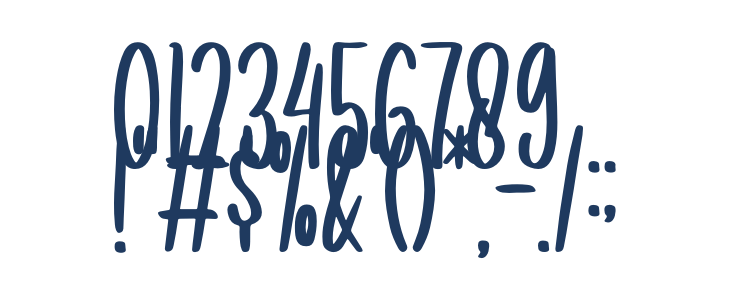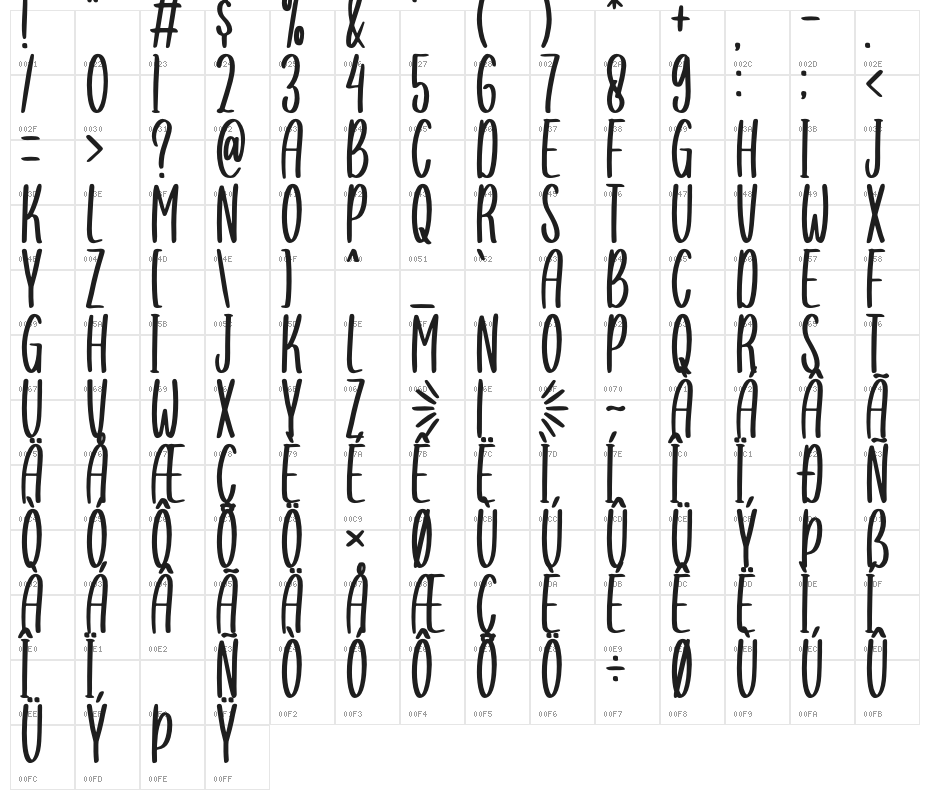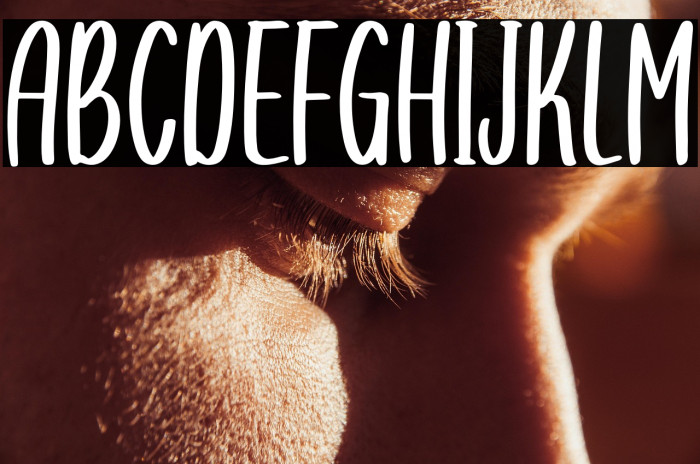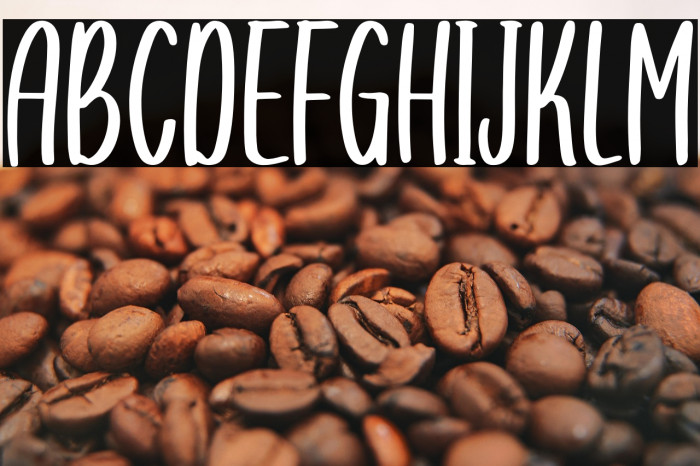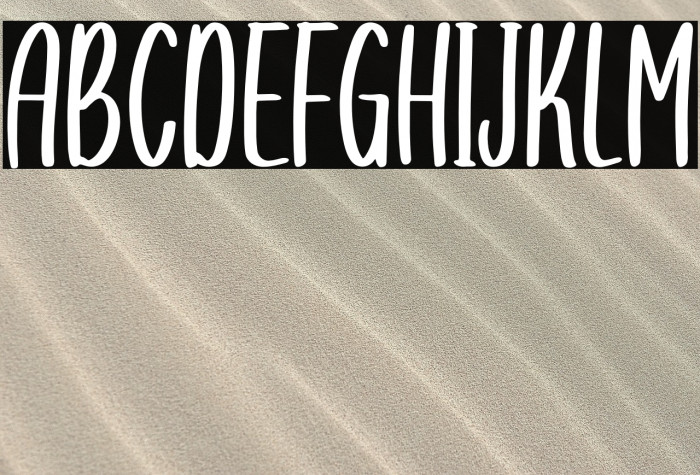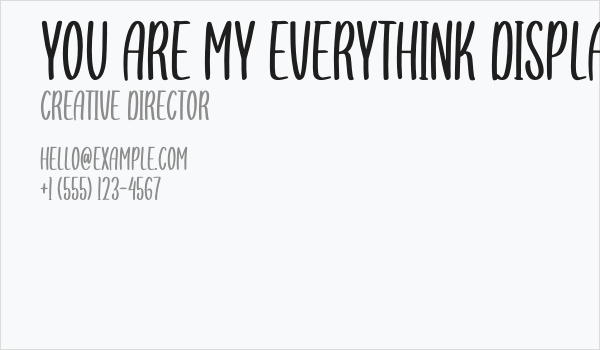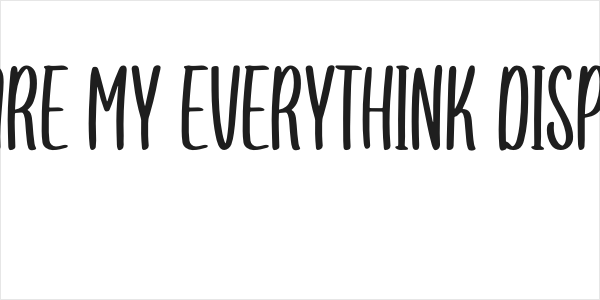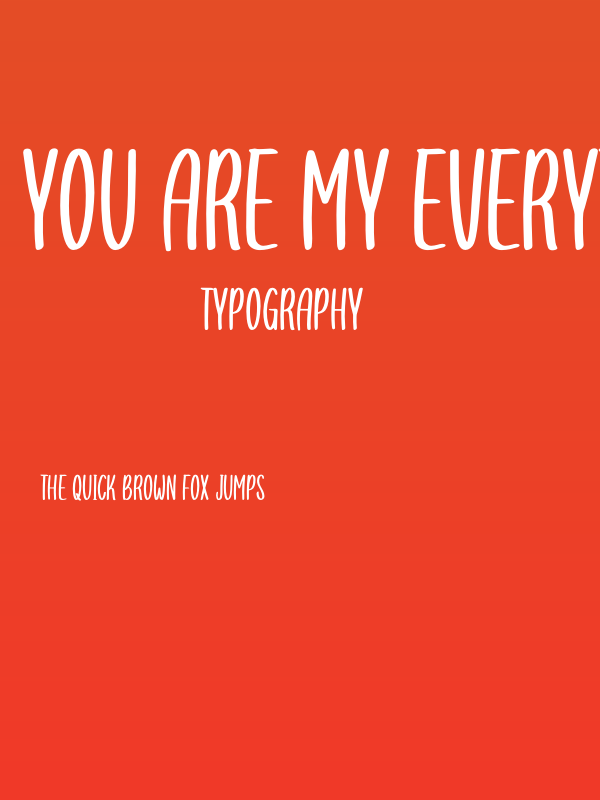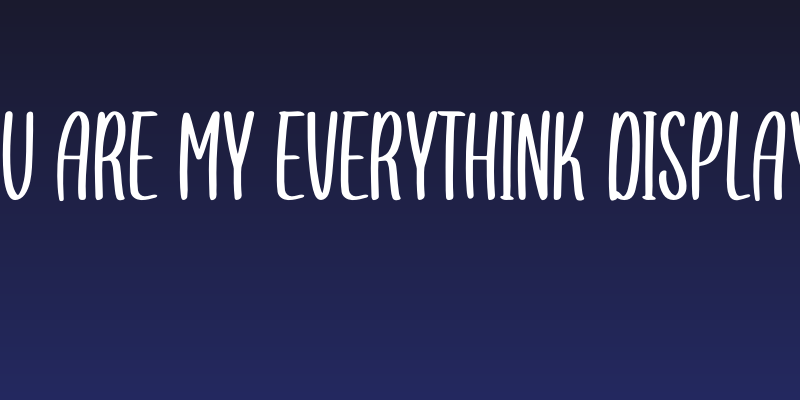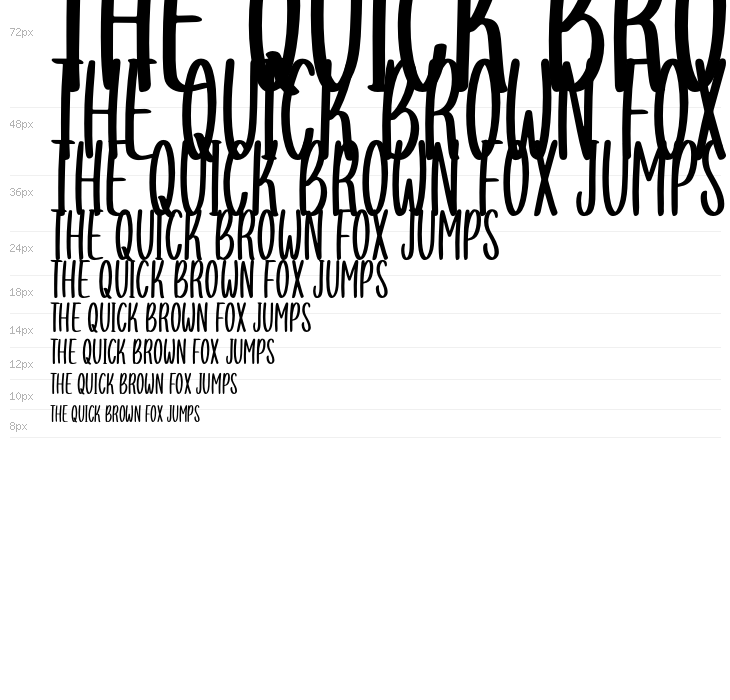
You are my everythink display f Font
This font features a bold, handwritten style with elongated, narrow characters that convey a sense of modern artistry and personal expression. The uppercase and lowercase letters maintain a consistent height, creating a uniform appearance across the text. The numbers and special characters follow the same stylistic approach, ensuring cohesion throughout. The strokes are thick and consistent, providing a strong visual impact. This font is ideal for projects that require a personal touch or a creative flair, such as invitations, posters, or branding materials. Its unique style makes it stand out, while still being legible and versatile.
Use CaseHeadlines, Logos, Artistic displays
Proposed ProjectsIdeal for creative projects like invitations, posters, branding, and artistic displays.